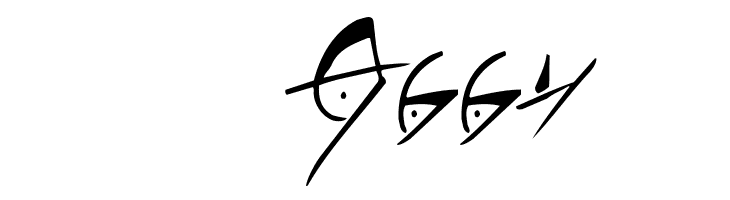
Zkratchy Regular Шрифта
- Шрифта: Zkratchy Regular
( Fonts by Cumberland Fontworks - http://www222.pair.com/sjohn/fonts.htm - S. John Ross )
A bold, angular, and expressive handwritten-style font.